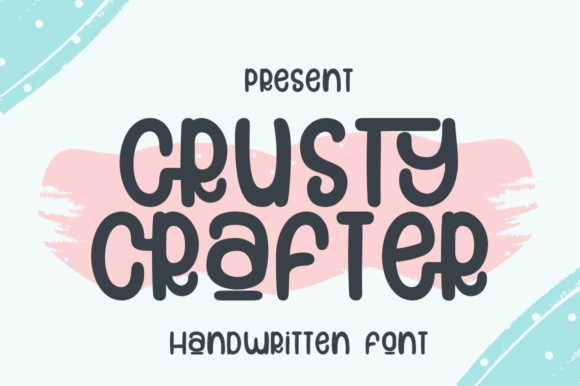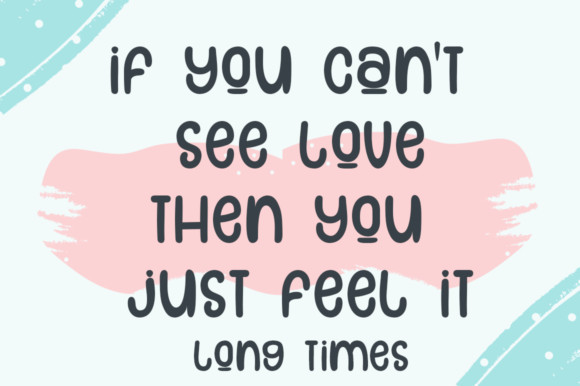
Crusty Crafter Font
Crusty Crafter is a cute and quirky display font. It will add an incredibly sweet, casual yet joyful touch to your designs. Add this beautiful font to each of your creative ideas and notice how it makes them stand out!